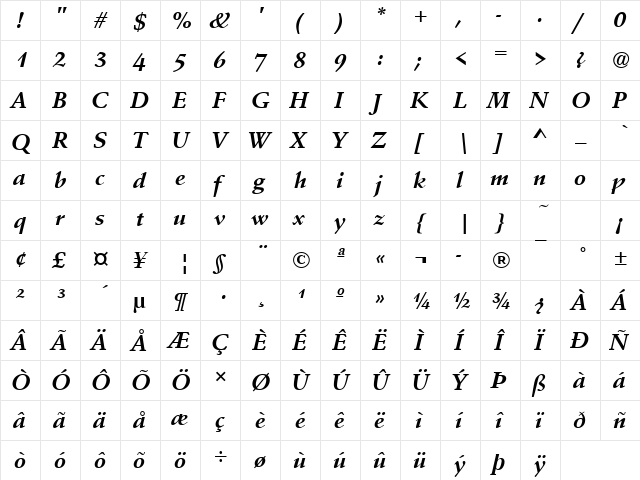
SchneidlerAmaT Bold Italic
Design Context for SchneidlerAmaT Typeface
SchneidlerAmaT takes a measured approach to typography — its balanced proportions and neutral character make it a reliable workhorse for both digital and print work. The slanted form adds forward momentum and visual energy. The heavy weight commands attention and anchors typographic hierarchies.